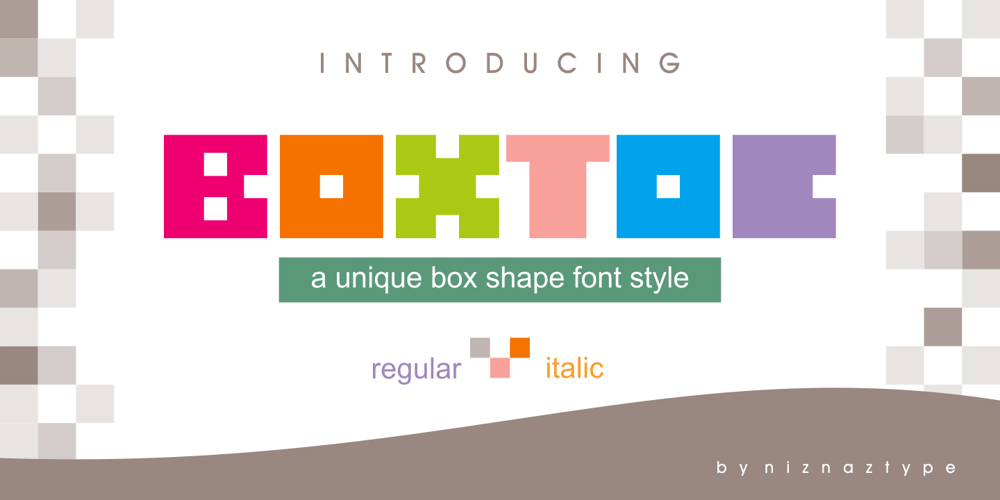
Boxtoc Font Family was designed by Muhammad Nazarudin and published by Niznaztype. Boxtoc contains 2 styles and family package options. Boxtoc is a unique box shape style. It is display typeface. Veryunique and cute if you look its form. This Boxtoc font inspired from abox shape that with form like rectangle. Not easy to complete thisbox shape to apply for all of glyphs. But Boxtoc nished it.Boxtoc have a character as a font that simple, unique, easy andfunny. So, this font suitable for designs such as comic, headline, tshirt,poster, tittle of product etc.Themes like kids, children and retro also comfortable to use Boxtocfont.Boxtoc consist of :- Uppercase- Lowercase- Numeral and punctuation- Multilingual LanguageBoxtoc save in two styles, regular and italic.Please, enjoy it with Boxtoc, very unique of box shape typeface.Thank a lot